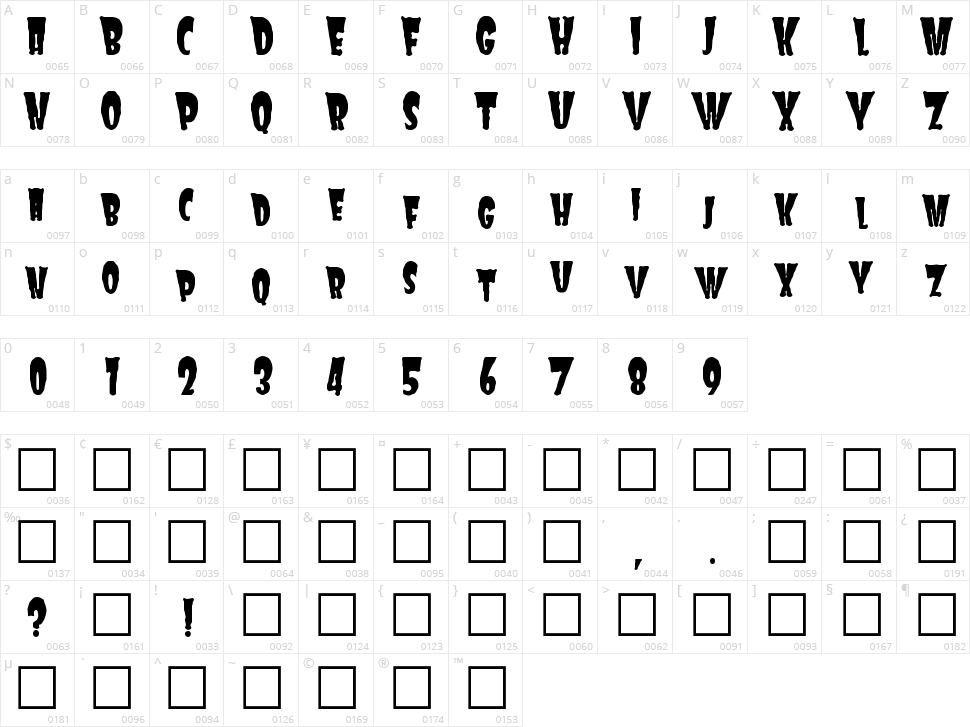
Frankie
Patched together from a couple of other things I was working on, FRANKIE is evocative of other (better) horror fonts. If you want all your text aligned to the same baseline, use all caps. If you want something wackier, try the lower case characters; they're roughly 85% smaller than the upper case letters, and set at arbitrary distances from the baseline. Use it for Halloween flyers, or letters to the mother-in-law. Enjoy!